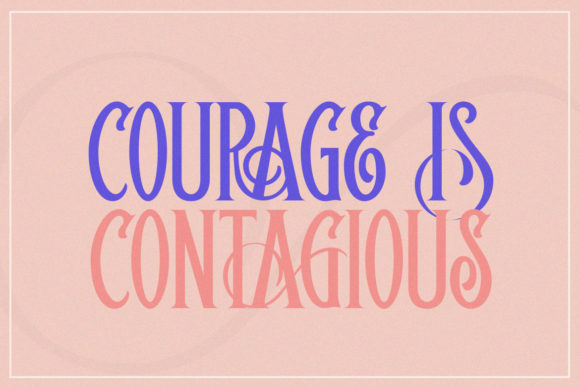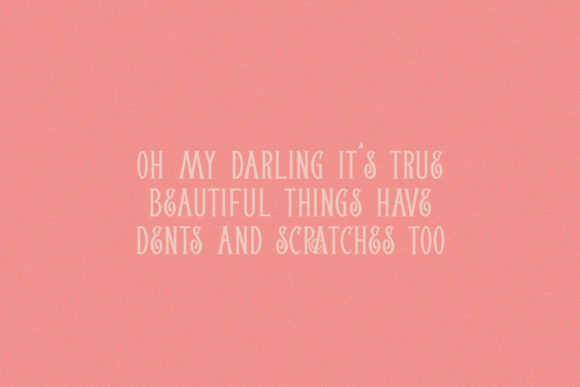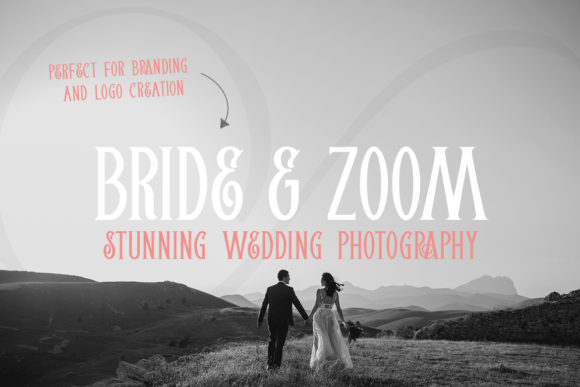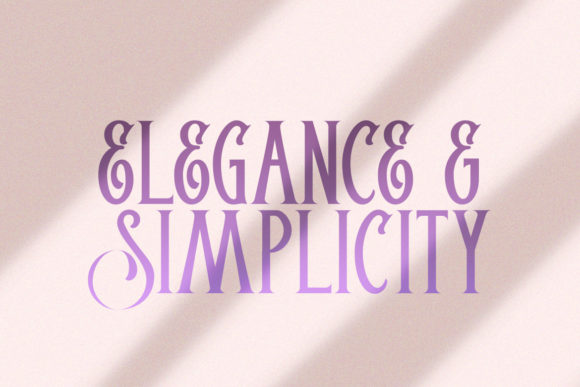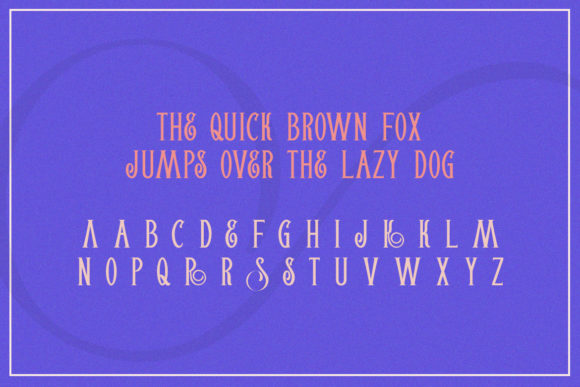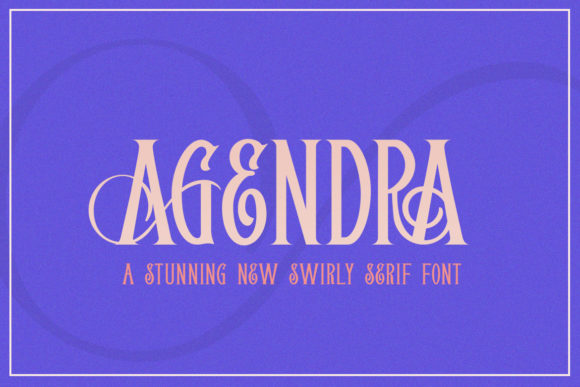
Introducing Agendra Font: Elevate Your Designs with Elegance and Boldness
Are you tired of using the same old fonts in your designs? Look no further than Agendra Font, an elegant and bold serif font that is sure to take your creative projects to the next level. With its unique blend of sophistication and playfulness, Agendra Font is the perfect addition to any designer’s toolkit.
What Makes Agendra Font So Special?
Agendra Font is an elegant and bold serif font that can easily be matched to an incredibly large set of projects. Whether you’re working on a logo, brochure, or website, Agendra Font is sure to make your designs stand out from the crowd. Its classic serif design gives it a timeless look that works well with a variety of design styles, from traditional to modern.
One of the key features that sets Agendra Font apart is its versatility. It can be used for a wide range of projects, from elegant and sophisticated designs to bold and playful ones. Whether you’re looking to create a luxurious brand identity or a fun and quirky advertisement, Agendra Font is the perfect choice.
Key Features of Agendra Font
- Elegant and Bold Design: Agendra Font features a unique blend of elegance and boldness, making it perfect for designs that require a touch of sophistication.
- Serif Design: The classic serif design of Agendra Font gives it a timeless look that works well with a variety of design styles.
- Versatile: Agendra Font can be used for a wide range of projects, from elegant and sophisticated designs to bold and playful ones.
- High-Quality: Agendra Font is a high-quality font that is designed to deliver exceptional results in any design project.
Here are a few tips for using Agendra Font in your designs:
- Use it as a Headline Font: Agendra Font is perfect for use as a headline font, where its bold and elegant design can really make an impact.
- Pair it with Other Fonts: Agendra Font works well when paired with other fonts, including sans-serif fonts and script fonts.
- Experiment with Different Sizes and Colors: Don’t be afraid to experiment with different sizes and colors of Agendra Font to find the perfect look for your design.
Why Designers and Crafters Love Agendra Font
Agendra Font has quickly become a favorite among designers and crafters, and for good reason. Its unique blend of elegance and boldness makes it perfect for a wide range of design projects, from logos and brochures to websites and social media graphics.
Here are a few reasons why designers and crafters love Agendra Font:
- It’s Versatile: Agendra Font can be used for a wide range of projects, making it a great addition to any designer’s toolkit.
- It’s High-Quality: Agendra Font is a high-quality font that is designed to deliver exceptional results in any design project.
If you’re looking for a font that can elevate your designs and make them stand out from the crowd, look no further than Agendra Font. With its elegant and bold serif design, versatility, and high-quality construction, Agendra Font is the perfect addition to any designer’s toolkit.